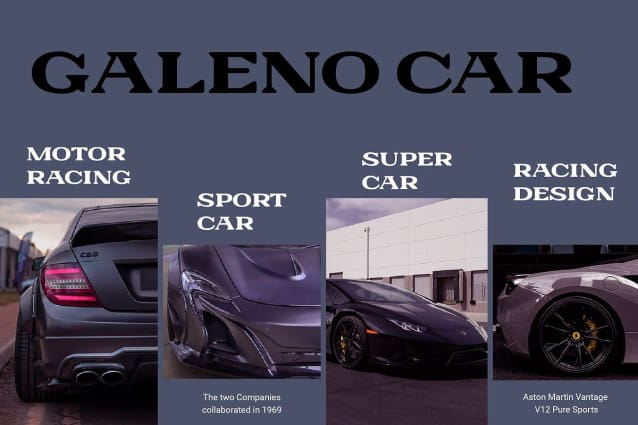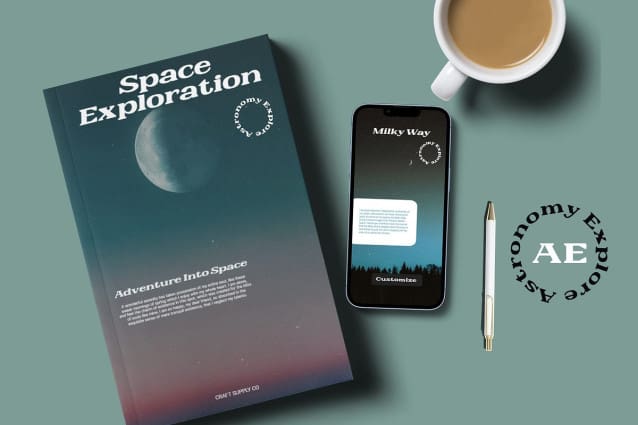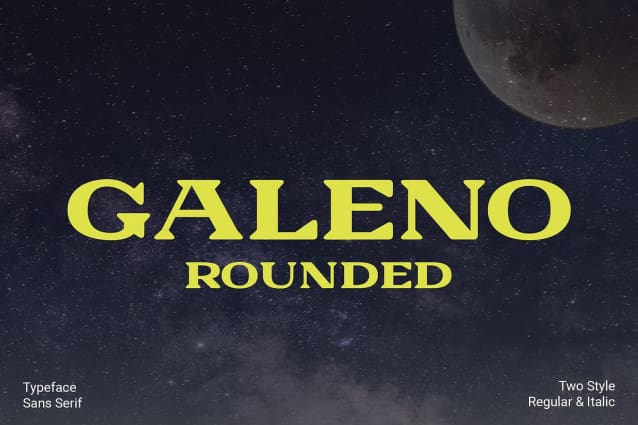
Galeno Rounded Font
Galeno Rounded Font: The Essence of Elegance. Soft and Elegant Design Galeno Rounded features a wide serif design with gently rounded edges, exuding an aura of elegance and softness. Its smooth contours and graceful appearance make it a versatile choice for various design projects.
Wide Serif with a Modern Twist With its wide serif style and rounded terminals, This font offers a modern interpretation of classic serif fonts. Its contemporary flair adds a fresh dimension to traditional typographic designs.
Versatile Application Ideal for a wide range of applications, This font shines in both print and digital media. From editorial layouts to branding materials, its elegant and soft demeanor enhances the visual appeal of any project.
Enhancing Visual Aesthetics This font elevates the visual aesthetics of any design with its wide yet gentle serif design. Whether used for headlines, body text, or branding, it adds a touch of sophistication and refinement to every layout.
Timeless Sophistication This font epitomizes timeless sophistication with its wide serif and rounded terminals. Its elegant and soft design makes it a versatile choice for designers seeking to infuse their projects with grace and charm. Experience the essence of elegance with Galeno Rounded.